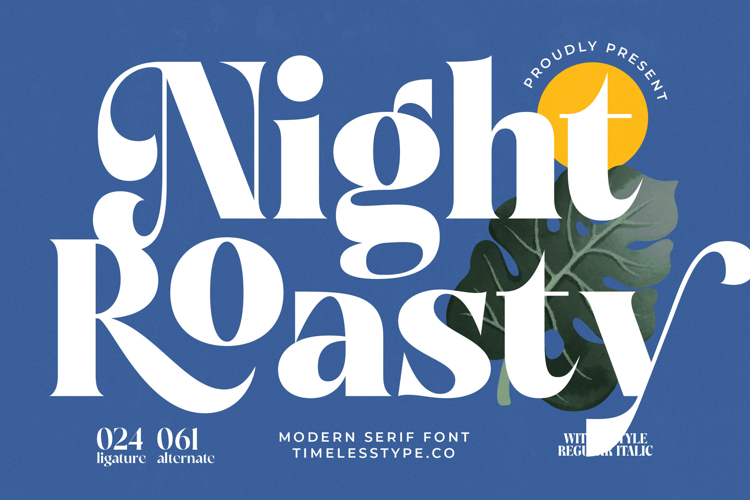
Night Roasty - Modern Serif Font
Discover unparalleled elegance with Night Roasty - Modern Serif Font, a typeface designed to captivate and charm. This exquisite font masterfully blends classic serif grace with a contemporary aesthetic, featuring striking high-contrast strokes and refined letterforms. It’s the perfect choice for designers seeking to convey an immediate sense of sophistication and timeless appeal in their projects.
Elevate your visual narratives with the distinctive character of Night Roasty - Modern Serif Font. Its intricate details, including elegant serifs and flowing stylistic alternates and ligatures, offer immense creative freedom. This font provides an expressive yet readable foundation, ensuring your message is not only seen but profoundly felt, adding a touch of bespoke artistry to any layout.
Reach a worldwide audience effortlessly with Night Roasty - Modern Serif Font's expansive capabilities. With its extensive multilingual support, Night Roasty - Modern Serif Font adapts seamlessly across global markets, making it incredibly versatile for international projects. This ensures your brand messaging resonates universally, maintaining its distinctive elegance across diverse languages and cultures.